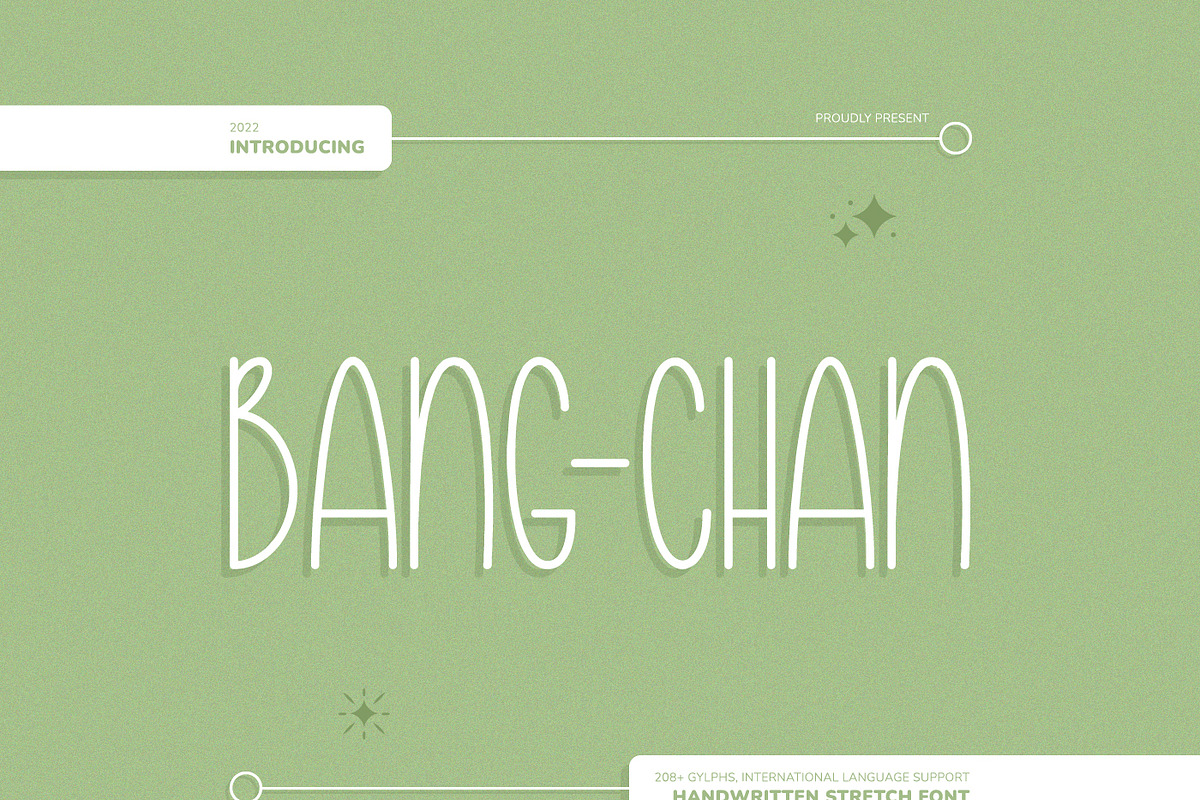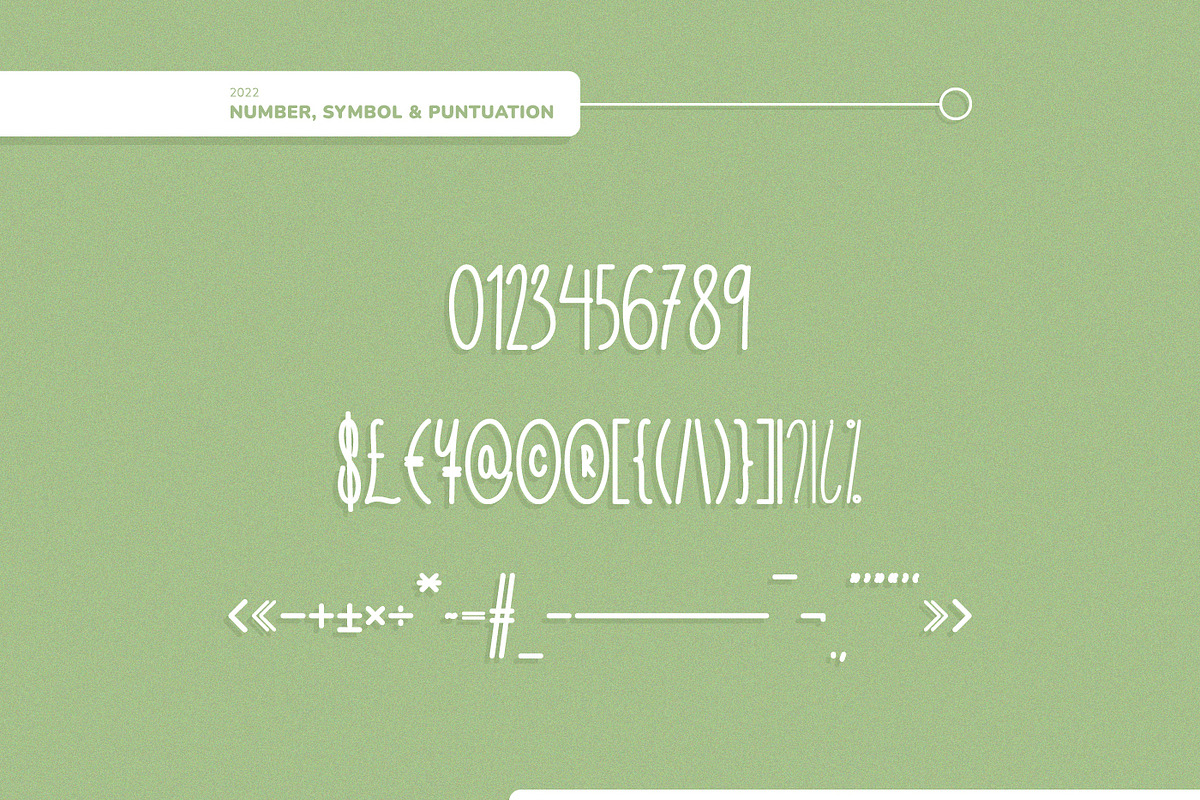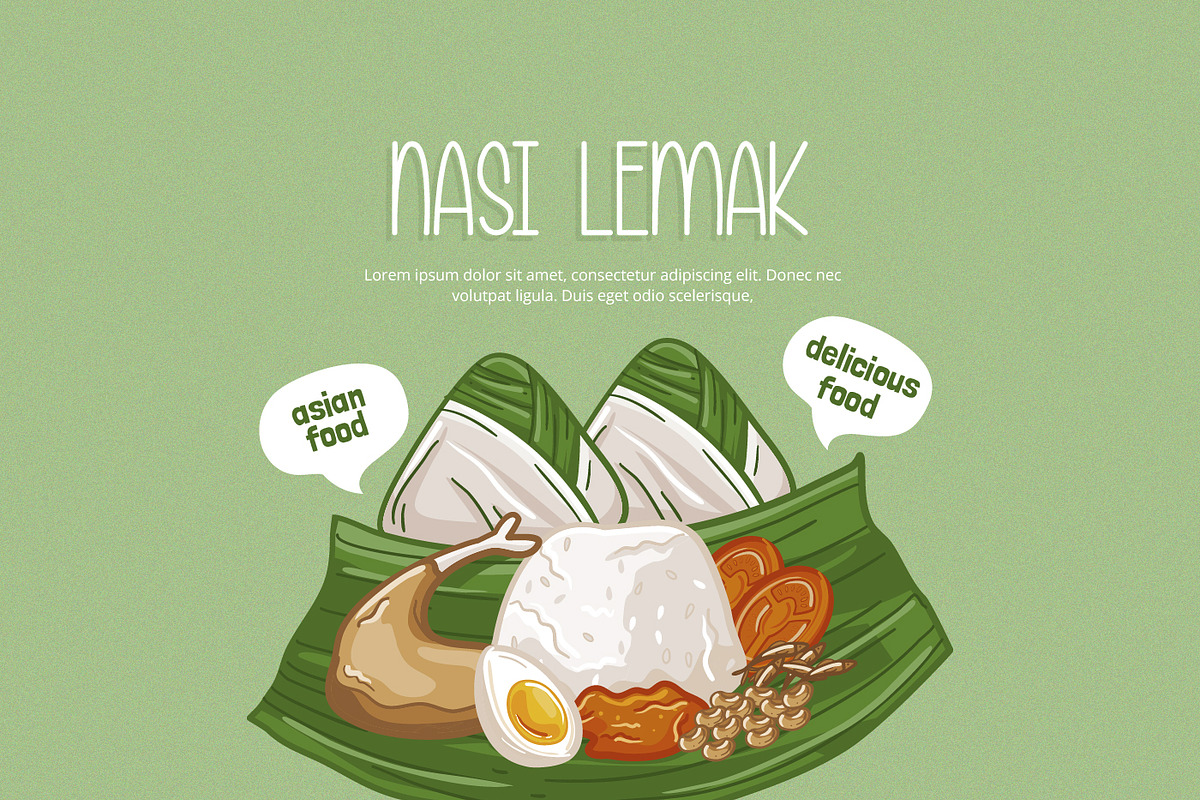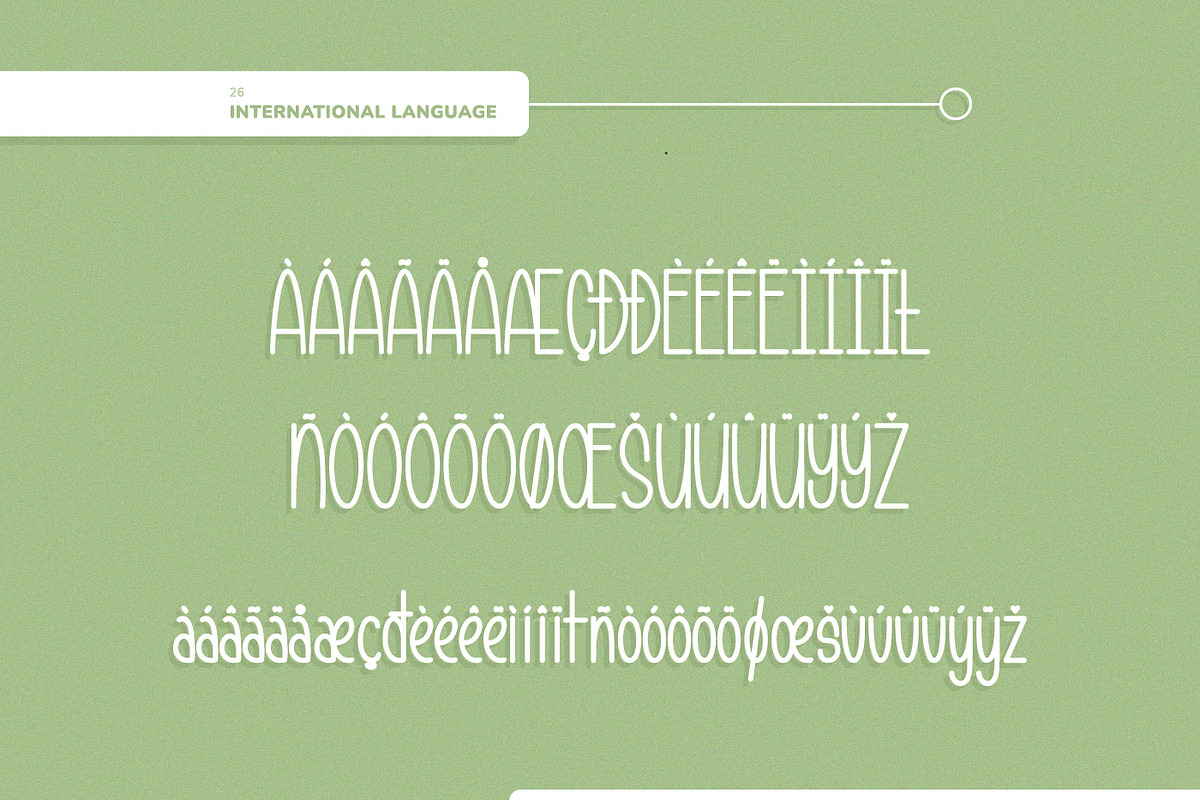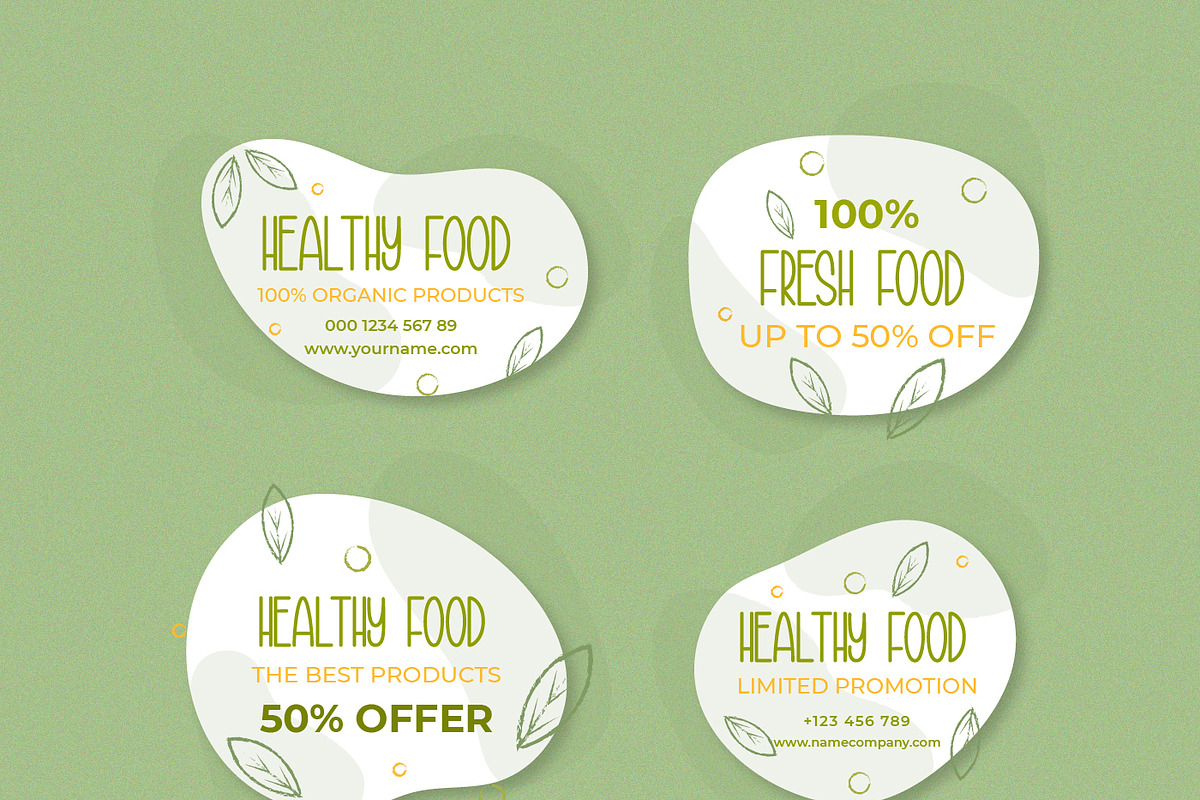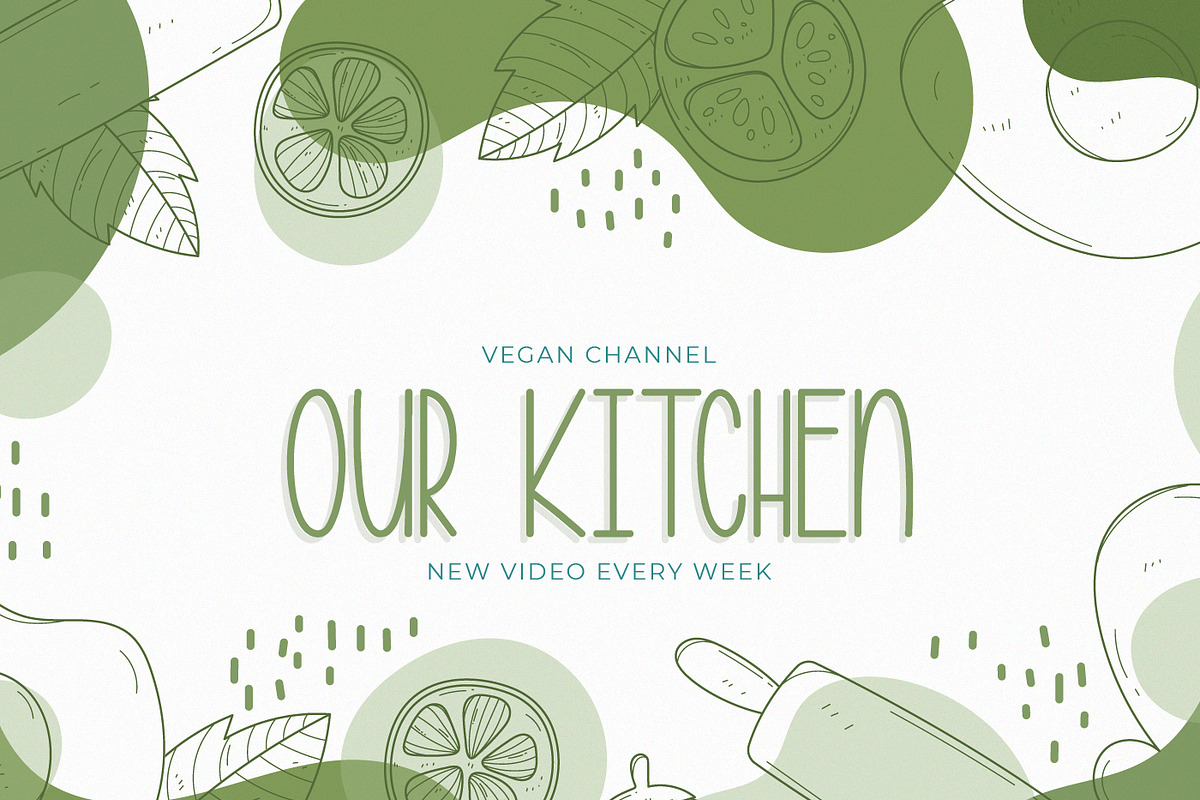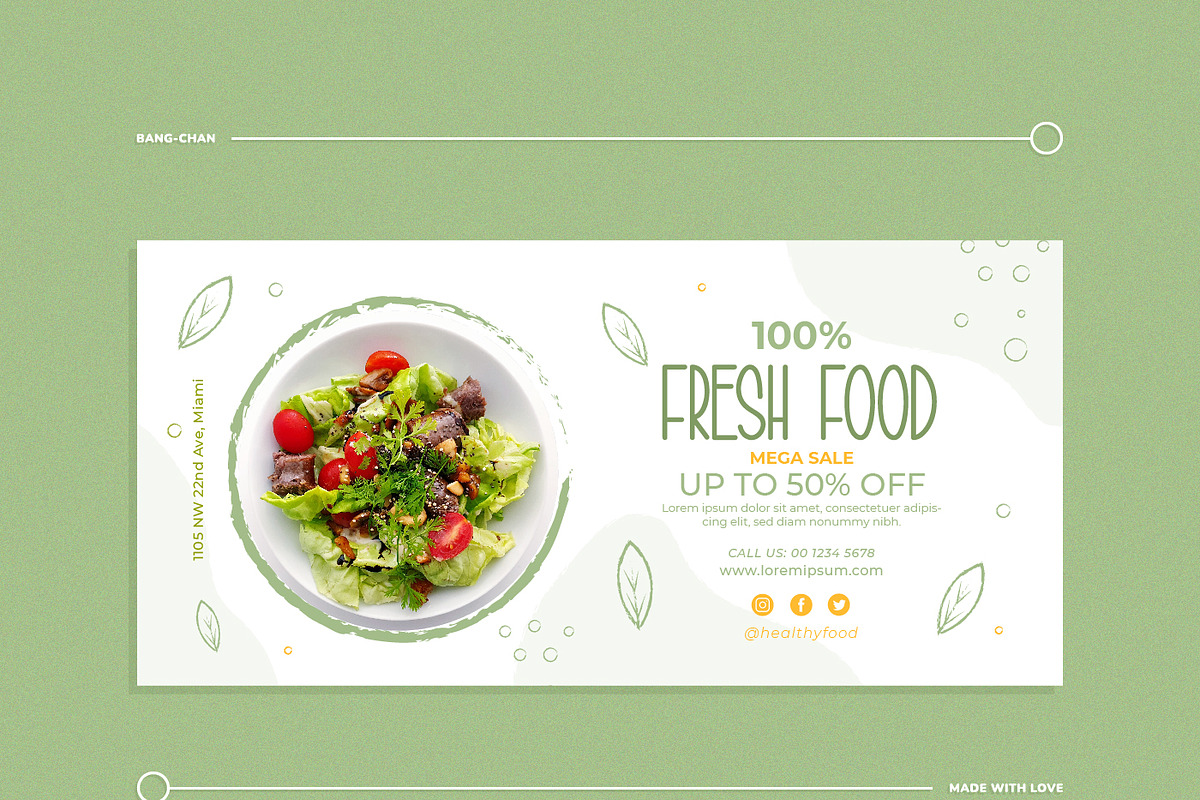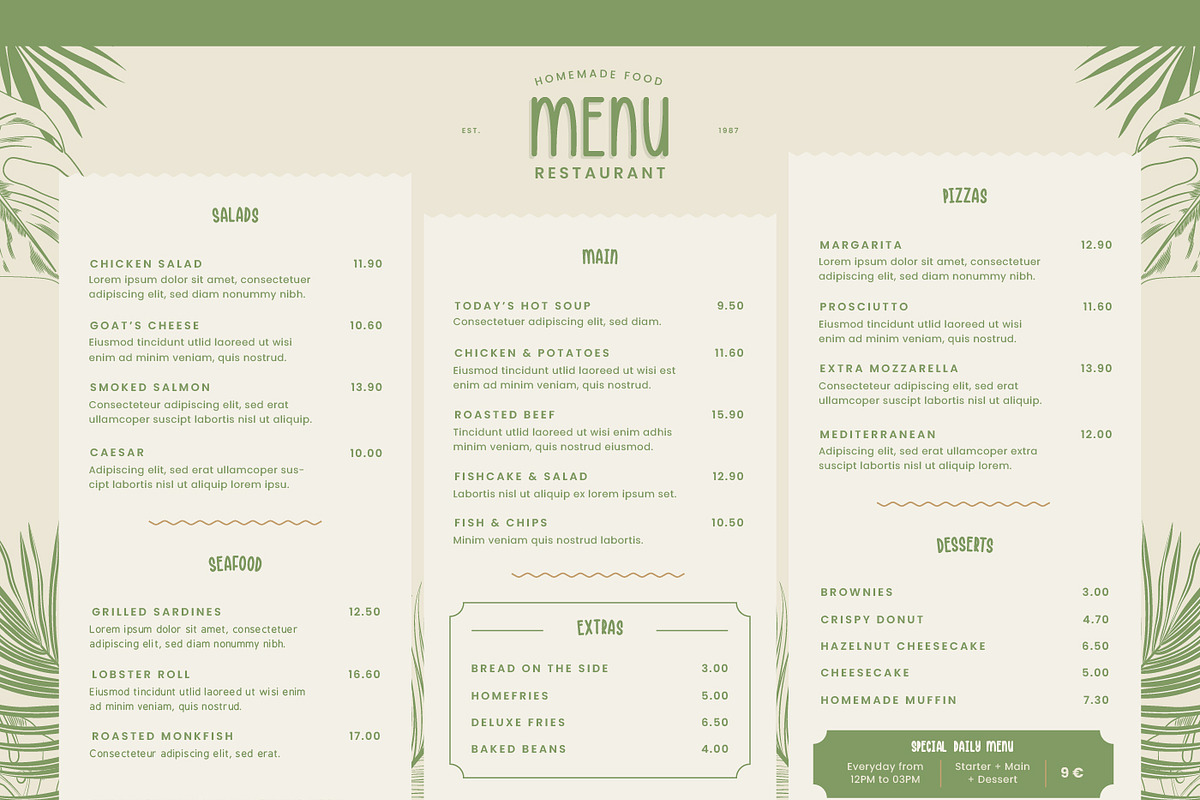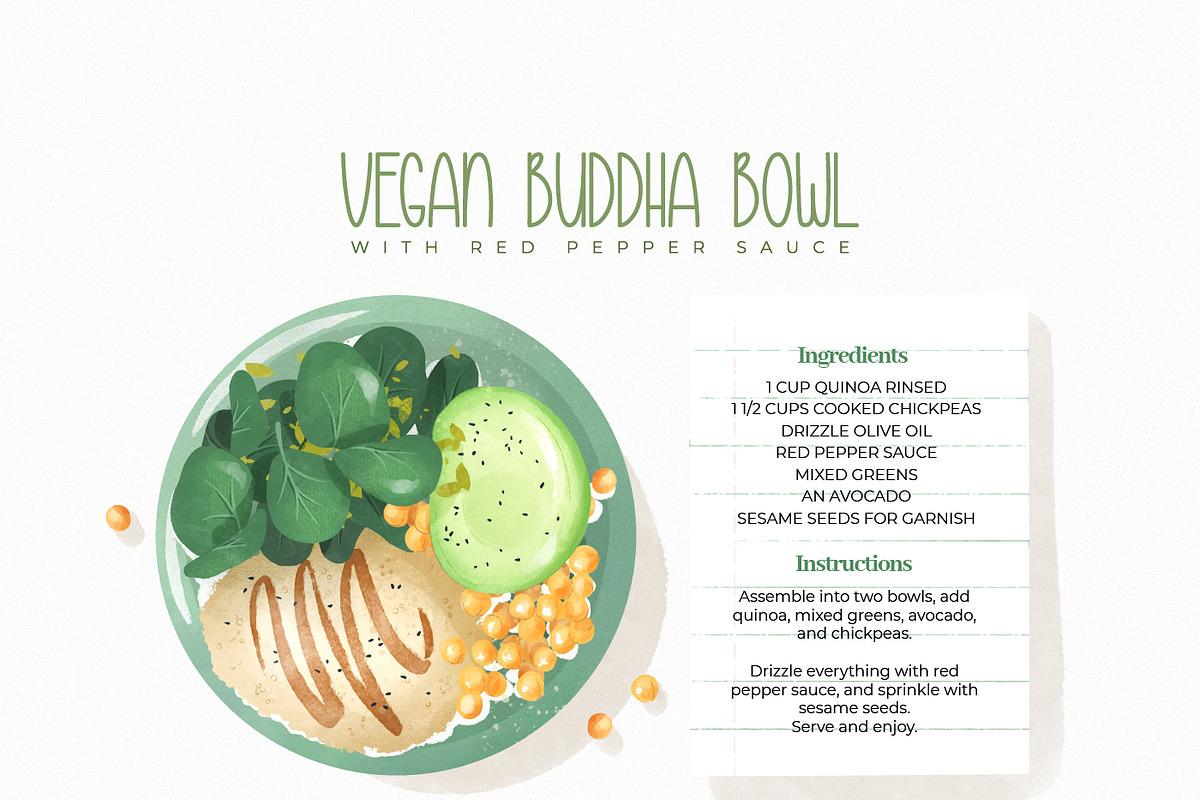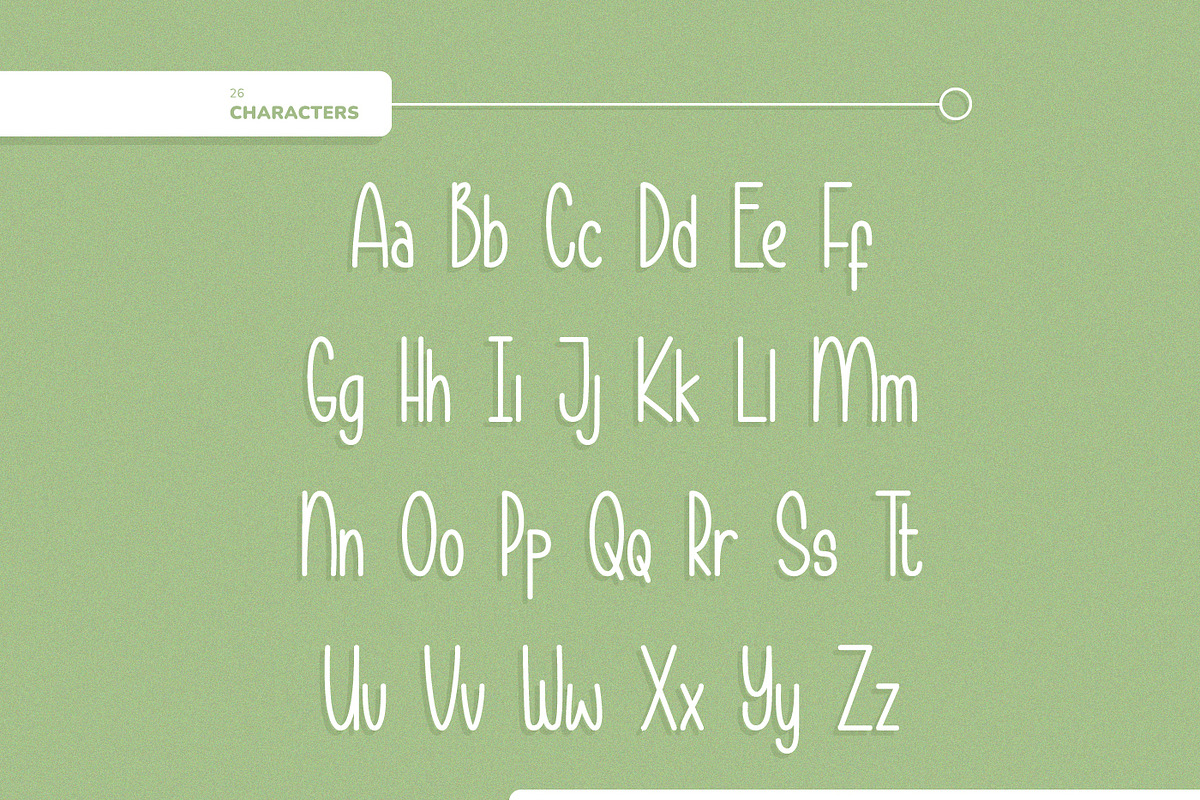
Bang Chan Modern Display
BANG-CHAN is a Modern Display font that is truly stylish and extraordinary, because its stylish and gorgeous appearance makes this font look very attractive and captivating. "BANG-CHAN" will make your product design look massive moreover amazing.
BANG-CHAN Modern Display is perfect for branding projects, logos, cafetaria projects, blogs, food receipt templates, decoration, label, watermark, and more projects.